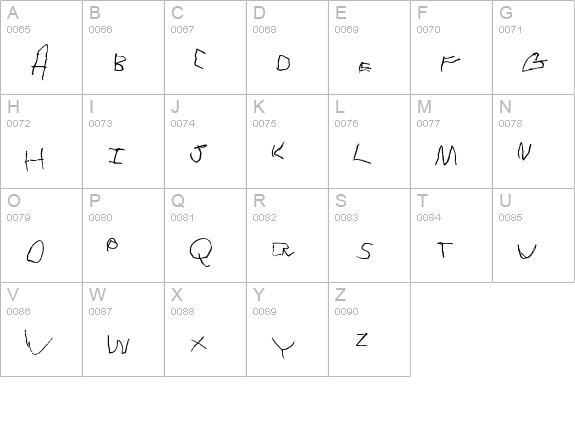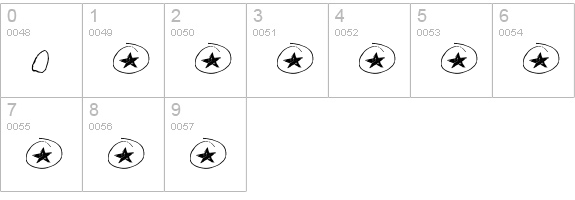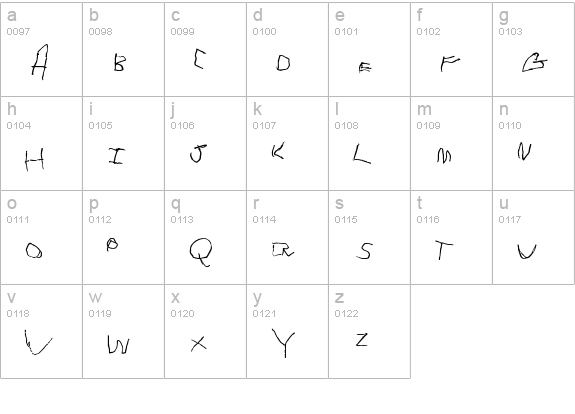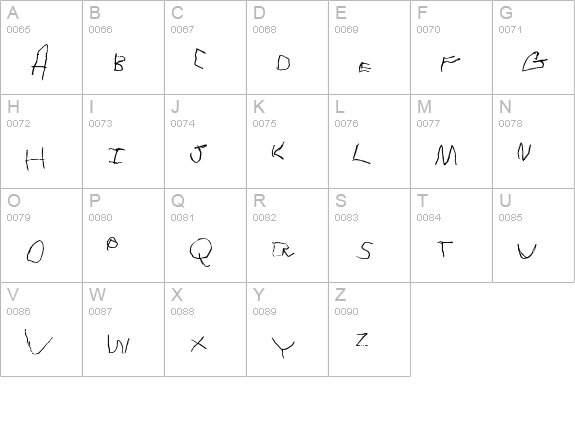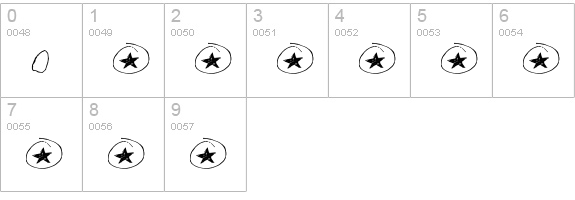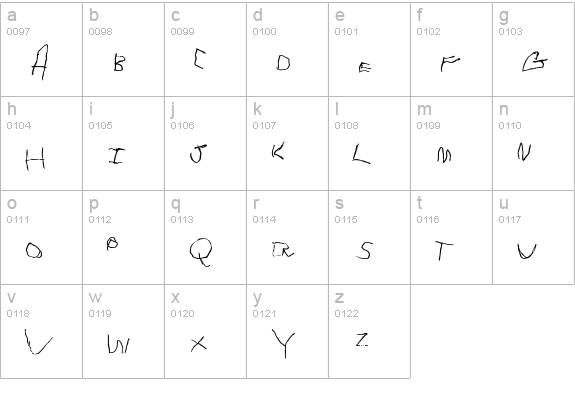
Tommy's First Alphabet Font Details
Introducing Tommy's First Alphabet font, a whimsical and enchanting typeface that is perfect for capturing the joy and excitement of learning the ABCs. With its playful and childlike design, this font is sure to delight both young and young-at-heart audiences. Tommy's First Alphabet font features a unique combination of rounded edges and bold strokes, creating a friendly and approachable appearance. The letters are carefully crafted to resemble a child's handwriting, adding an extra touch of authenticity and nostalgia to any project. Whether you're designing educational materials, children's books, or playful branding, Tommy's First Alphabet font is the ideal choice to infuse your designs with a sense of wonder and imagination. Its versatility allows it to be used for both headlines and body text, making it a truly versatile addition to any designer's toolkit. But the best part? Tommy's First Alphabet font is available for free! That's right, this delightful font can be freely downloaded at FontsMarket.com. We believe that creativity should be accessible to all, and we're thrilled to offer this font as a gift to designers, educators, and anyone who appreciates the magic of learning. So don't miss out on this opportunity to bring a touch of whimsy and adventure to your next project. Download Tommy's First Alphabet font today and let your designs come alive with the joy of discovery.